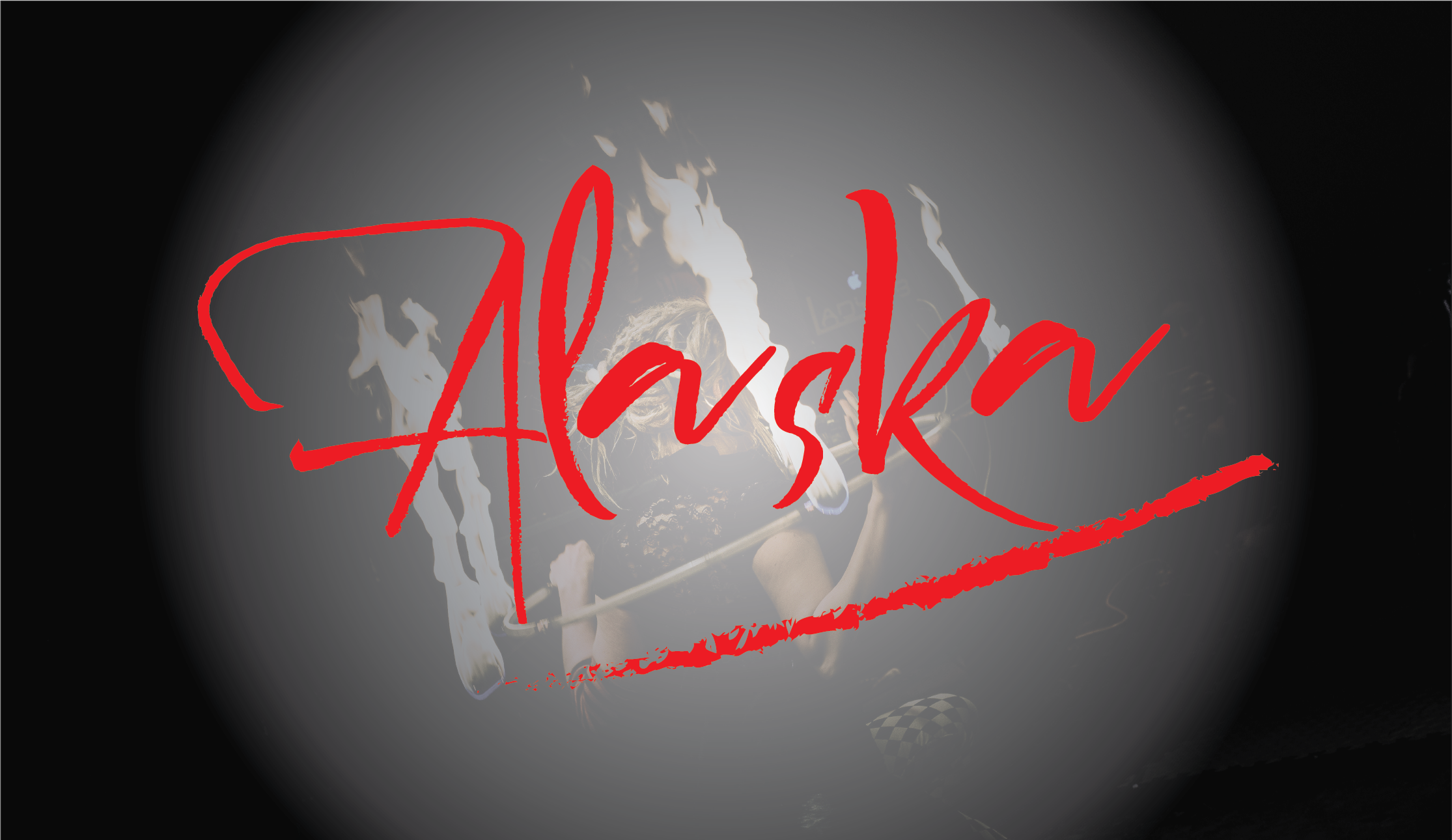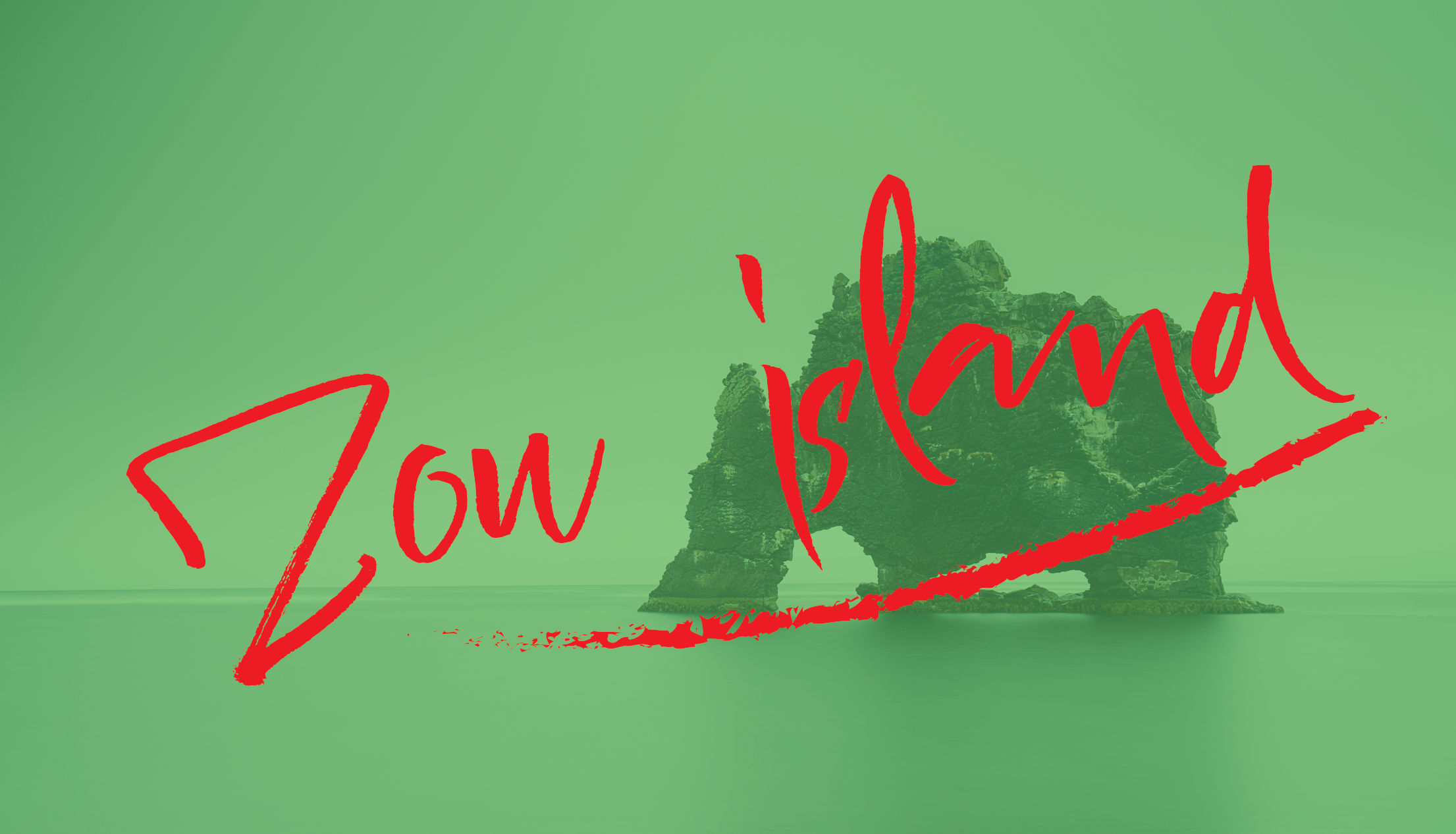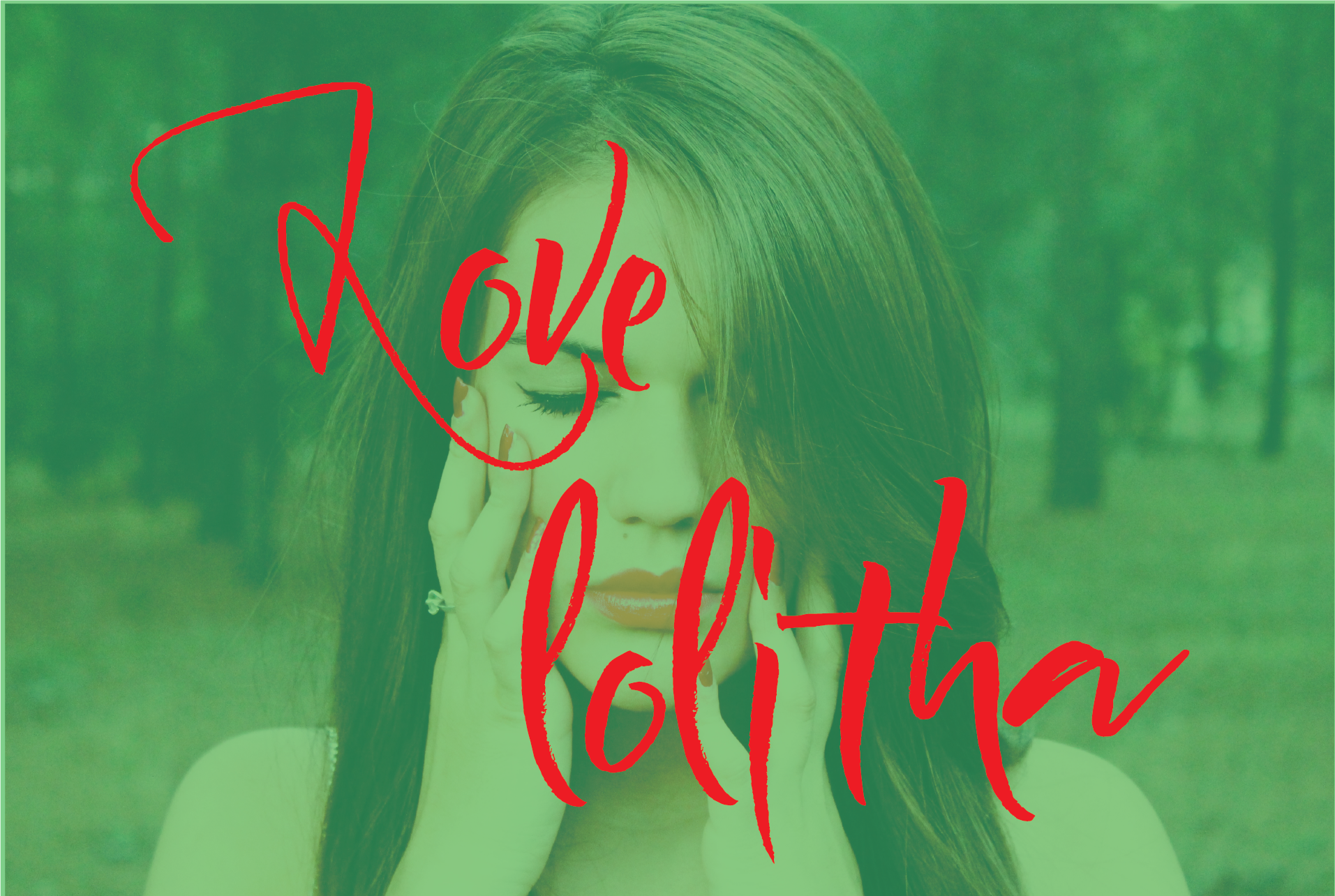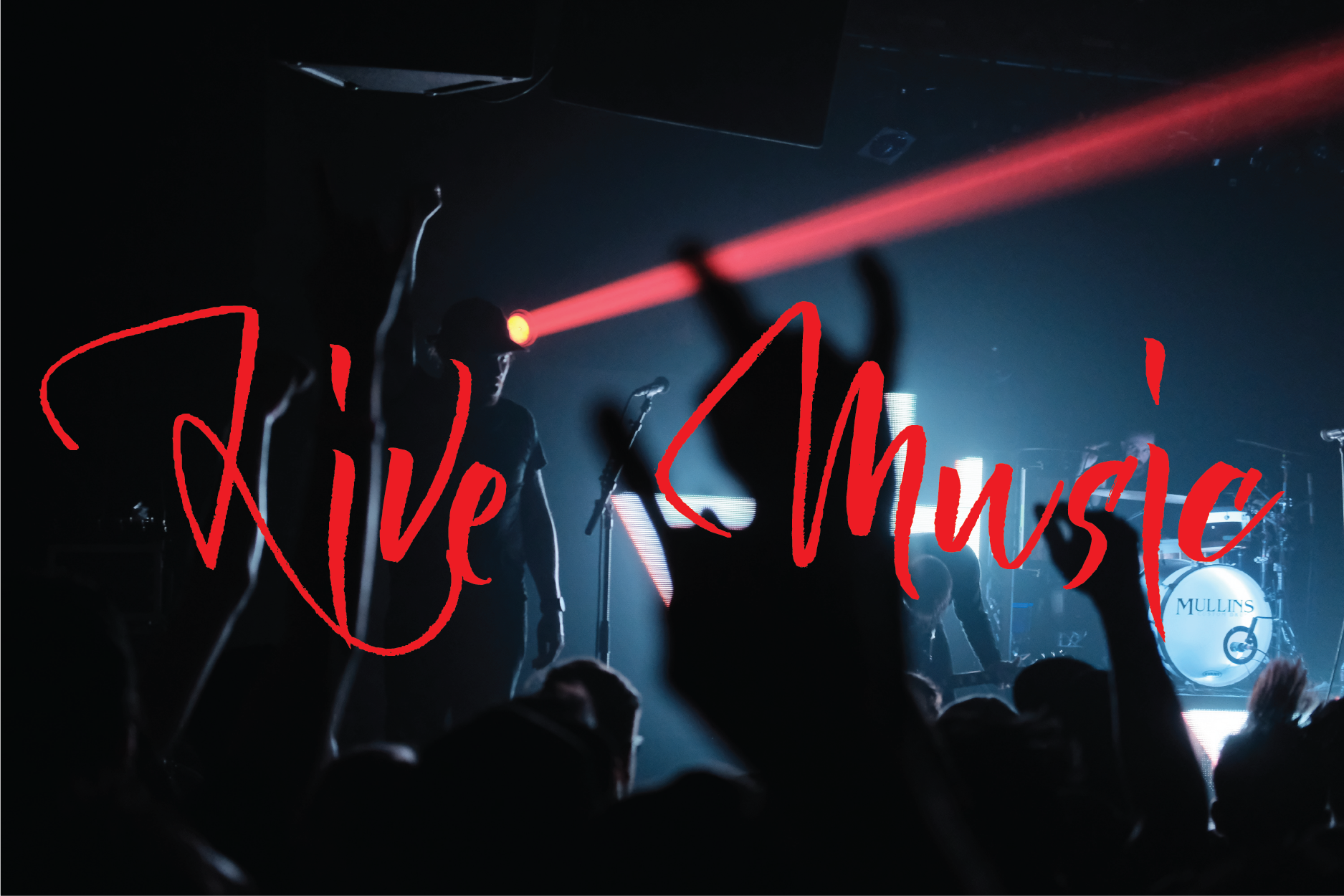
The Rockstar Font
About The Rockstar Font
The Rockstar is a handwritten brush font that features a huge range of stunning handmade glyphs. It’s perfect for branding or more personal designs.